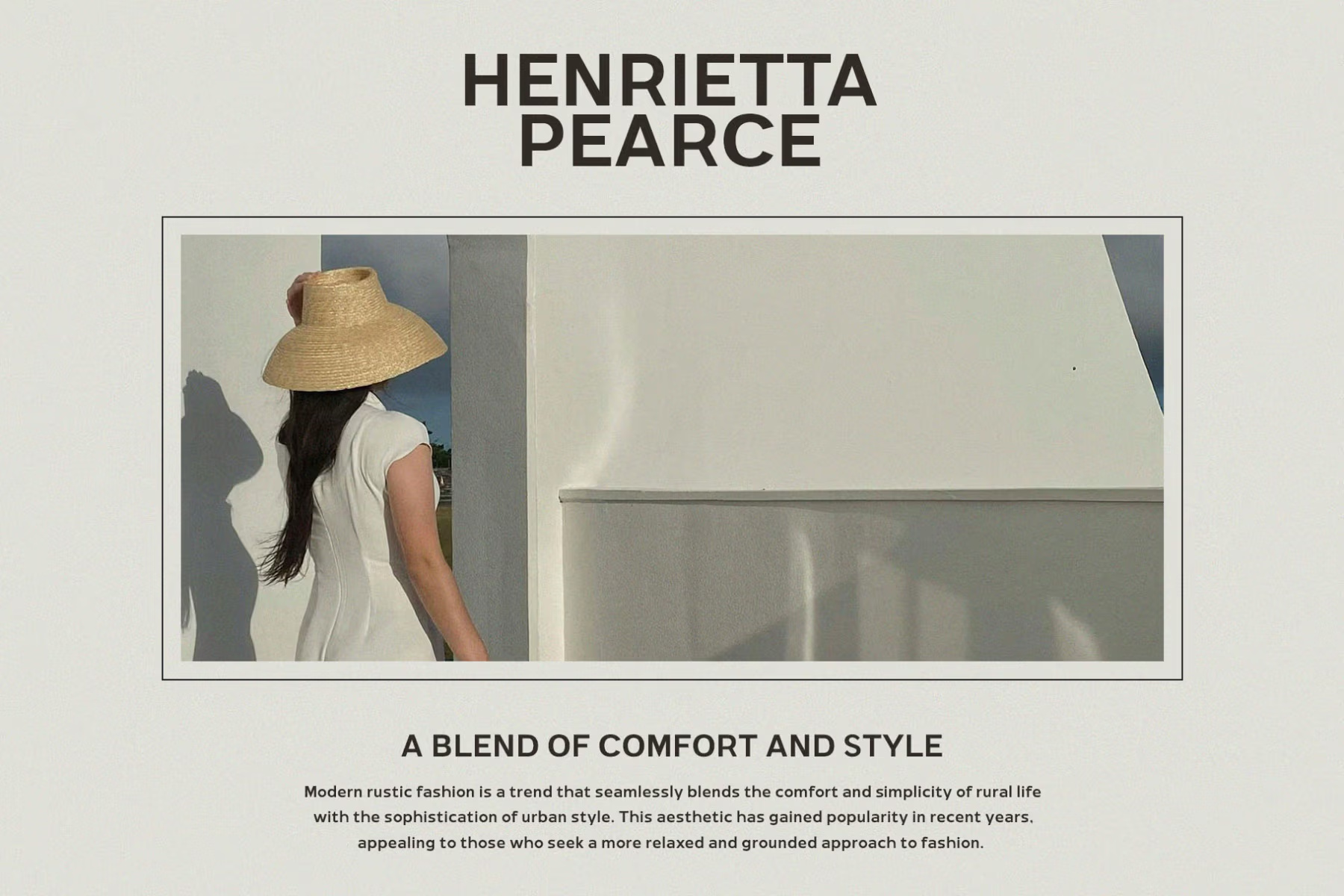
Geikya is a sans serif that does not try to be clever. Typeformers kept the shapes simple: round o and e, a single-storey g in some places, and a slightly wide stance that gives headings room to breathe. In mustard gold on a shadowed grey background, the name card looks warm and approachable.
It works best as a headline face. The “Henrietta Pearce” layout in the specimen puts it above a photo and a paragraph of small text, much like a fashion lookbook. The character set covers upper and lowercase, figures and the usual punctuation. You get one OTF file in the free download.
Best uses for Geikya
- Fashion and lifestyle branding
- Magazine and lookbook headings
- Interior design studios
- Packaging
- Website hero titles
Geikya Sans Serif Font